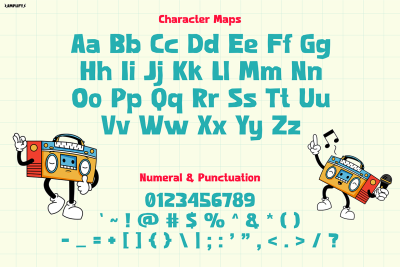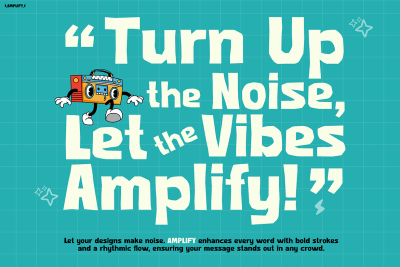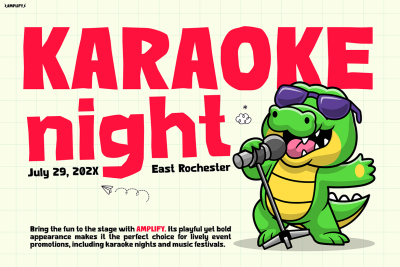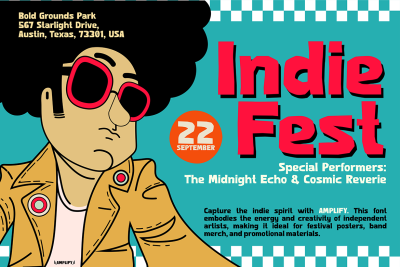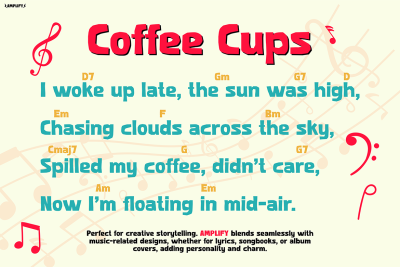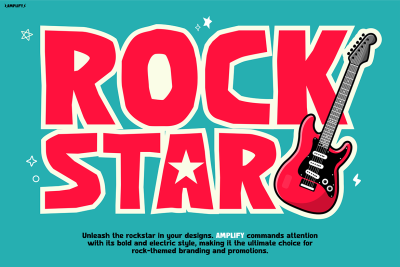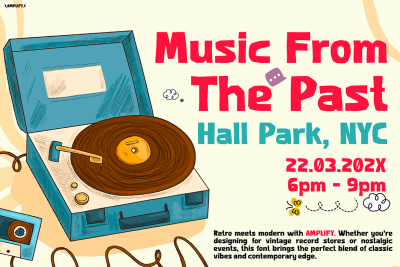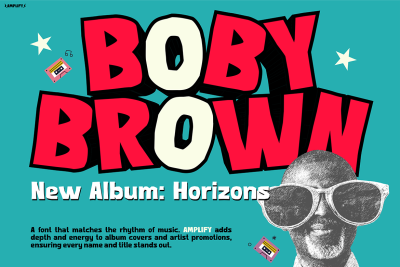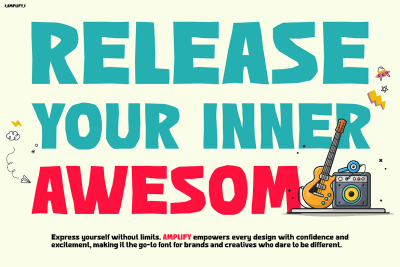
Music Font Amplify is a dynamic, energetic typeface that brings excitement to any project. With bold, playful letterforms and a slightly irregular structure, it captures the spirit of fun, creativity, and movement. Moreover, inspired by live performances, music festivals, and modern entertainment, Amplify ensures your message stands out. Whether you use it for event promotions, album covers, or social media graphics, it delivers high-impact visuals.
The thick, expressive strokes give Amplify a strong presence while keeping a friendly look. Additionally, its hand-drawn style adds personality and warmth, making it perfect for designs that communicate enthusiasm and joy. Whether in digital or print, Amplify remains readable while also adding a playful edge that keeps viewers engaged.
Furthermore, its versatility makes it ideal for eye-catching headlines, branding, and marketing materials. With its vibrant character, Amplify works across various platforms, helping designers create compelling visuals that truly resonate with audiences.
Who Should Use Music Font Amplify?
- Event Organizers & Promoters: Great for posters, flyers, and banners for music festivals, concerts, and karaoke nights, ensuring a lively atmosphere.
- Musicians & Bands: Perfect for album covers, merchandise, and promotional materials needing a bold, energetic touch that grabs attention.
- Social Media Creators & Influencers: Ideal for Instagram posts, YouTube thumbnails, and digital content, making visuals more engaging and shareable.
- Graphic Designers: A valuable addition to any toolkit for lively, fun, and engaging projects that require a standout font.
- Entertainment & Nightlife Brands: Works well for clubs, bars, and entertainment venues wanting a vibrant, youthful brand identity that attracts audiences.
- Kids & Family-Friendly Businesses: Ideal for childrenโs event promotions, toy packaging, and educational materials, ensuring a fun and approachable aesthetic.
Music Font Amplify is more than a typefaceโitโs an expression of energy, fun, and creativity. Ultimately, if you need a font that makes an impact while staying playful and inviting, Amplify is the perfect choice.